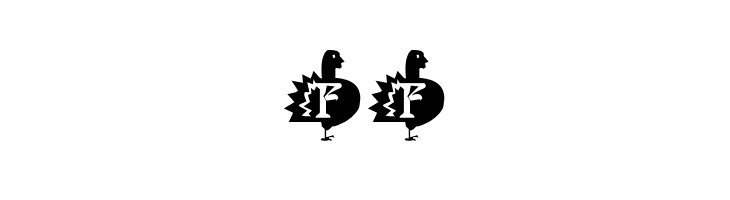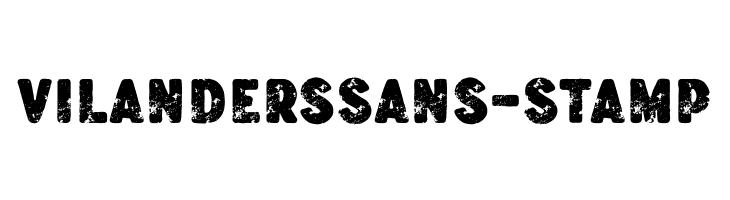
A bold, 3D grunge font with a distressed texture and strong visual impact.
A decorative font featuring detailed illustrations of Notre Dame Cathedral for each character.
A playful, whimsical handwritten font with flowing, irregular letterforms.
A bold, geometric font with a futuristic and angular design.
A whimsical font with letters inside turkey silhouettes, perfect for festive themes.
A playful, handwritten font with elegant loops and curls.
An elegant and flowing script font with cursive strokes and sophisticated flourishes.
A dynamic, cursive script font with flowing, expressive characters.